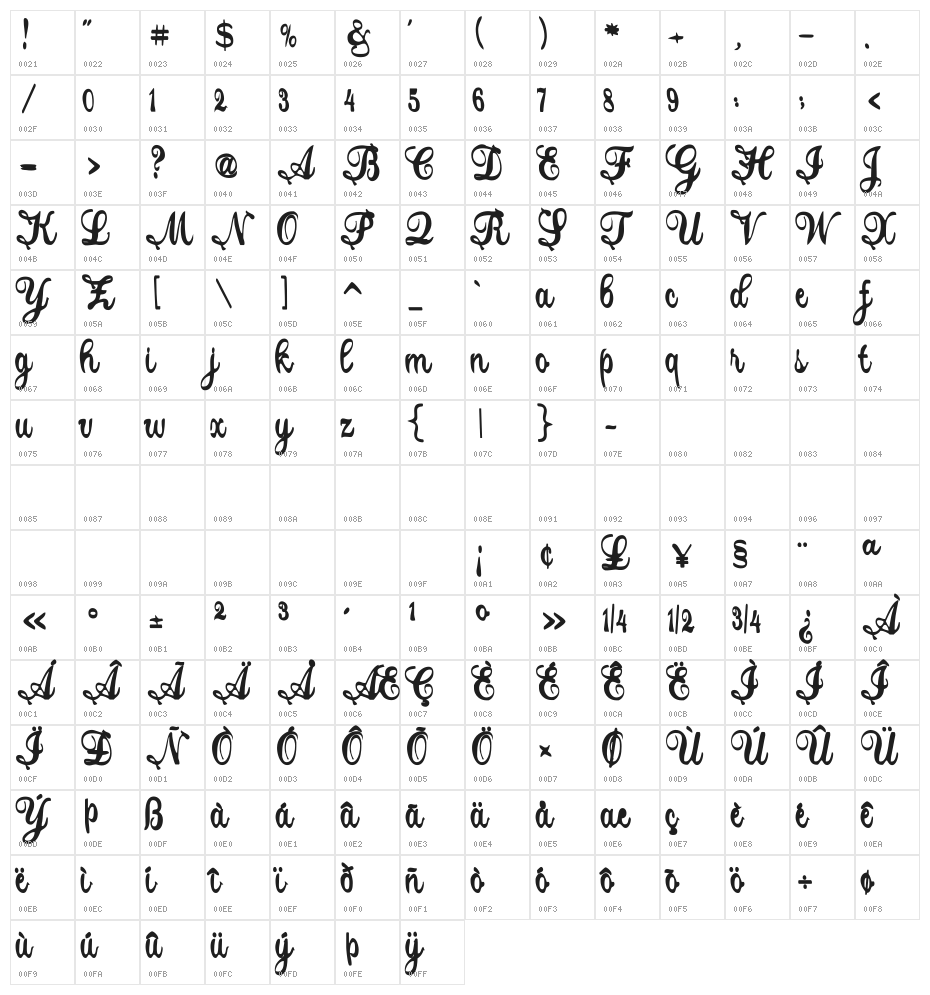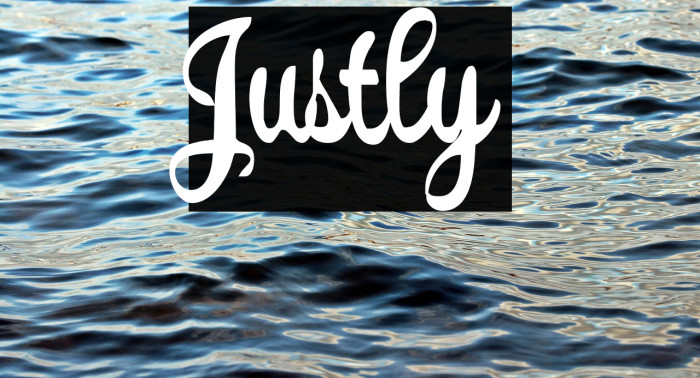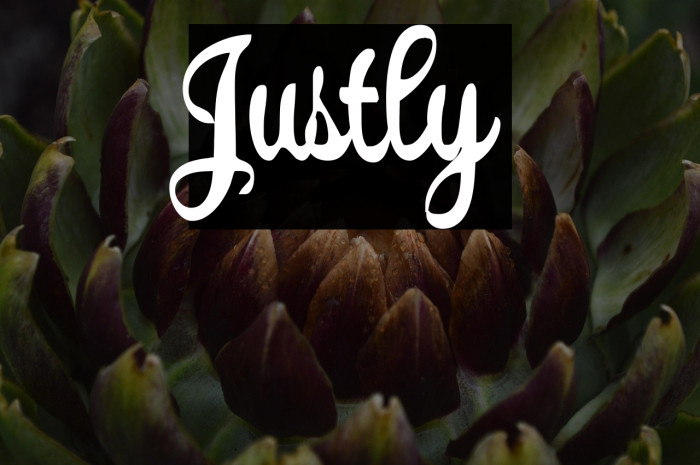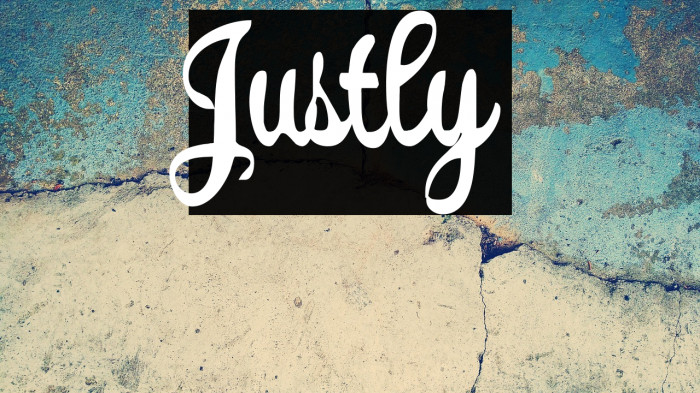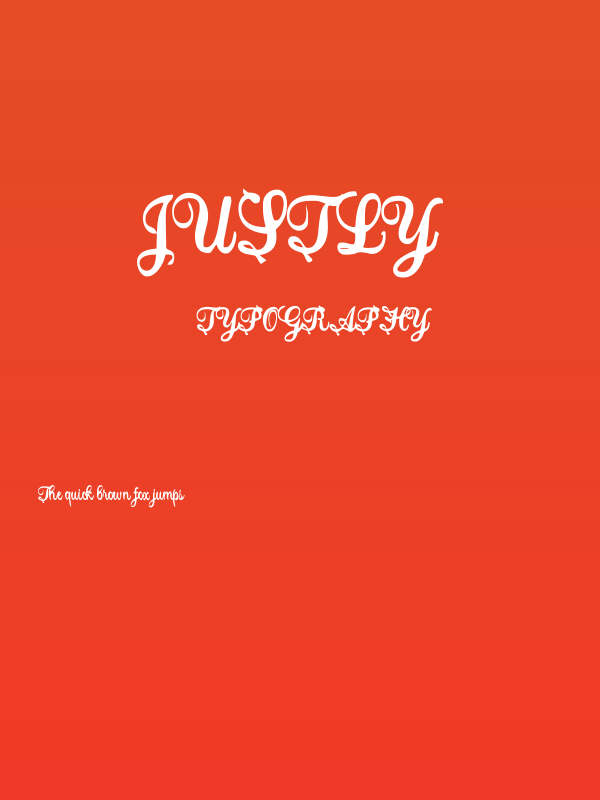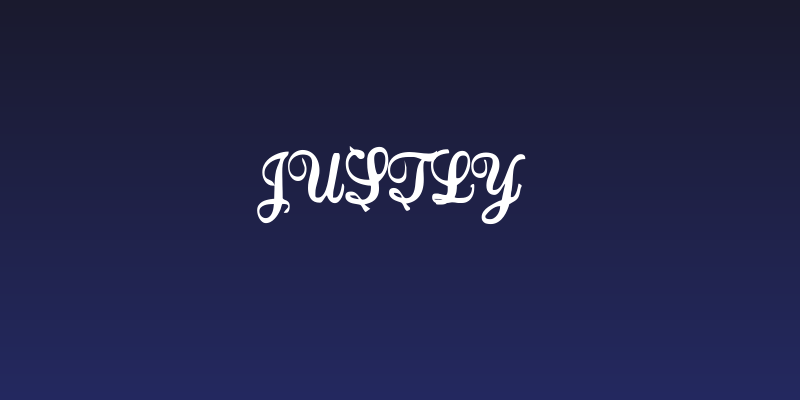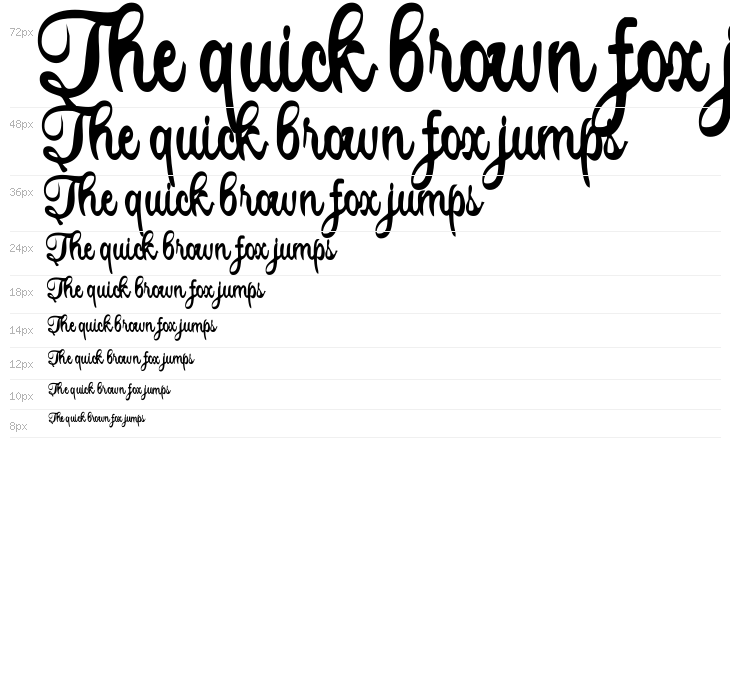
Justly Font
Justly Description
This font features a playful and artistic script style, characterized by its flowing, interconnected letters. The uppercase letters exhibit a whimsical flair with exaggerated loops and curves, while the lowercase letters maintain a consistent, smooth flow. The numbers are bold and rounded, complementing the overall aesthetic. Special characters are creatively designed, adding to the font's decorative appeal. This font is ideal for projects that require a touch of elegance and creativity, such as invitations, greeting cards, and artistic branding.
| Use Case | Logos, Headlines, Artistic projects |
| Proposed Projects | Ideal for invitations, greeting cards, artistic branding, and decorative signage. |